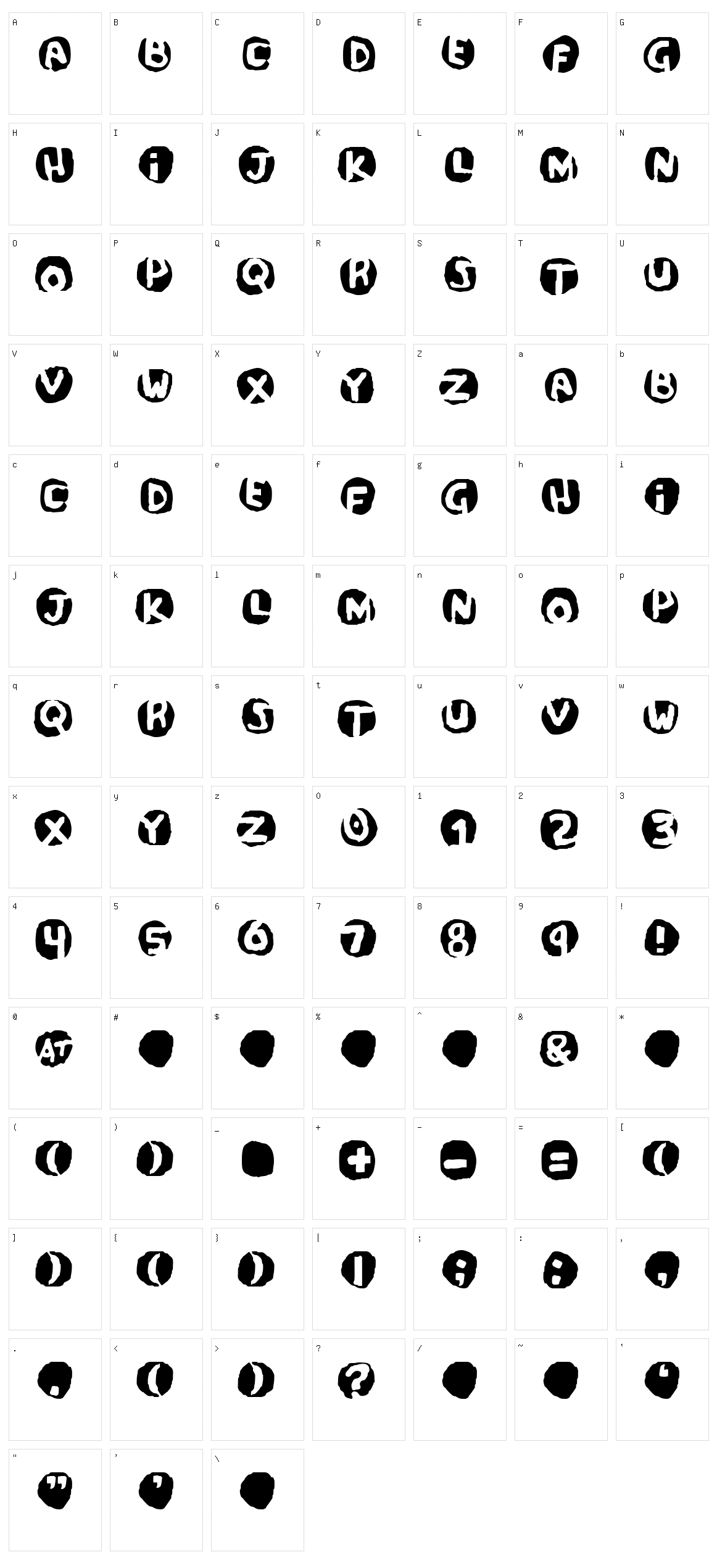
The free font Potassium Scandal is carefully designed by Divide by Zero, showcasing a thoughtful balance of creativity and usability and falls under the Decorative font style. When you download the ZIP file, it contains only 20.78 KB of font files, making it lightweight and quick to download. Please review the license details below to understand permitted usage and distribution rights. If license information is not available, we recommend using this font for personal projects only or contacting the author directly for commercial usage permissions.